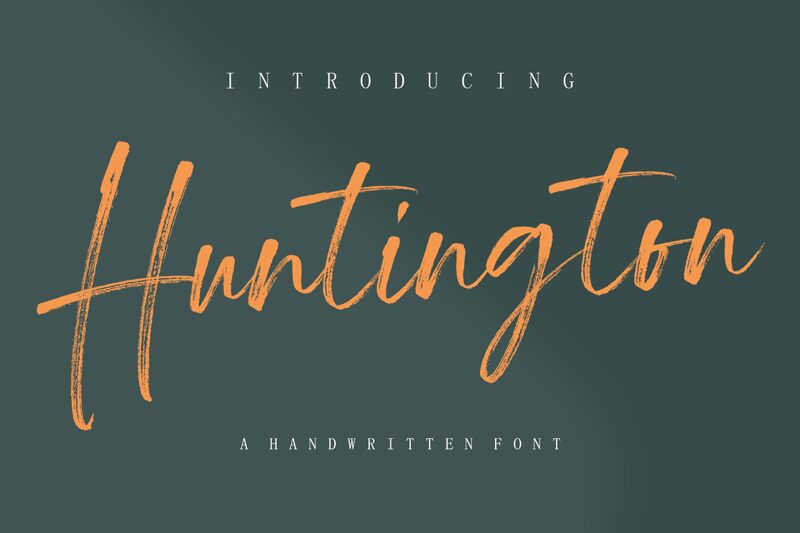
Huntington Demo
Huntington, a stunning handwritten signature font designed by Megi Satyo Widodo, will add an elegant touch to any project. With its light weight and semi-condensed width, Huntington is perfect for branding, logo design, wedding invitations, and more. Let this font bring a personal touch to your next project with its flowing curves and unique style. Whether you're creating a sophisticated business card or a romantic love letter, Huntington is sure to impress. Elevate your designs with this beautiful semi-condensed font and watch as it transforms your work into a work of art.